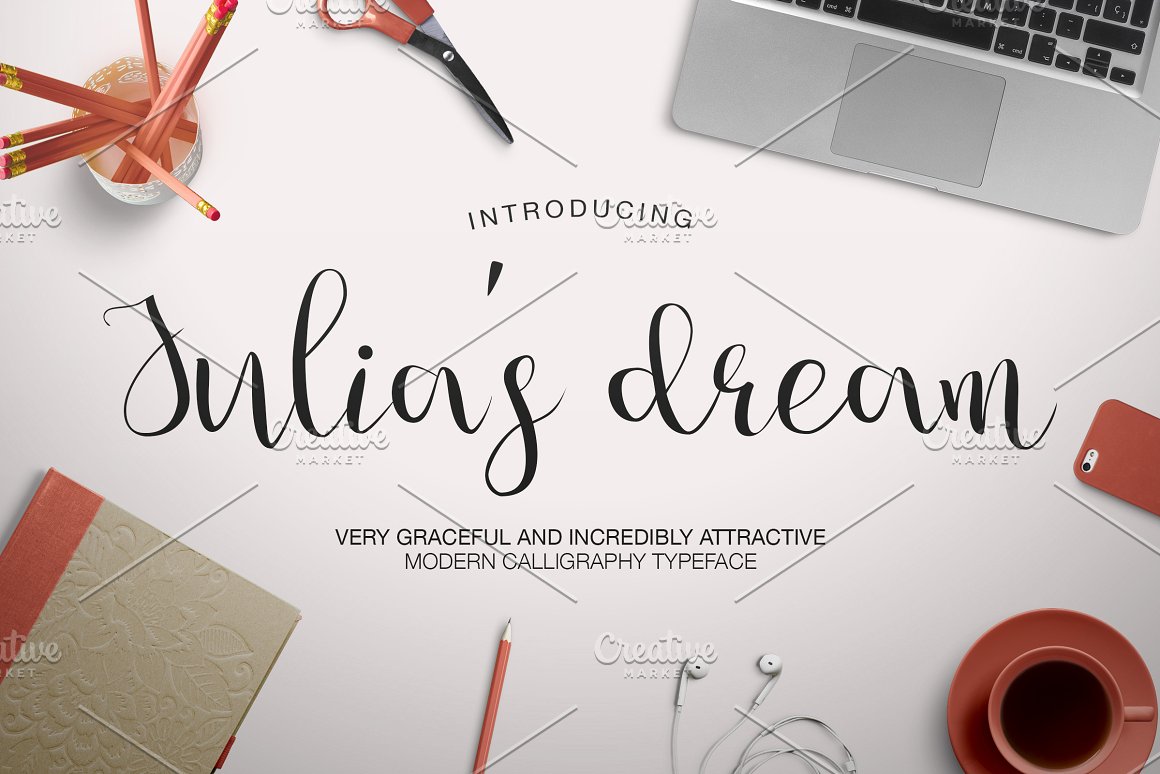
Julia’s Dream Script Font
I present to you a stunning font. 100% hand painting. Very suitable for the design of logos, creation of invitations, greeting card and more.
| Classification: | Calligraphy Fonts, Handwritten Fonts, Script Fonts |